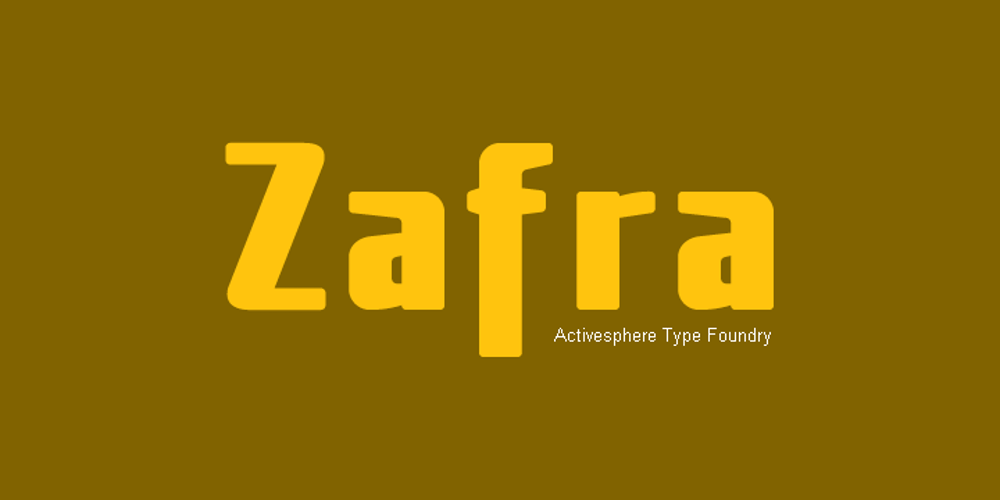
Zafra Font Family was designed by Ronnie Dela Cruz and published by ActiveSphere. Zafra contains 2 styles and family package options. Zafra is a geometric display font and works best in display applications, such as headline, posters, signage, magazine, product branding, corporate branding, logos and titles.